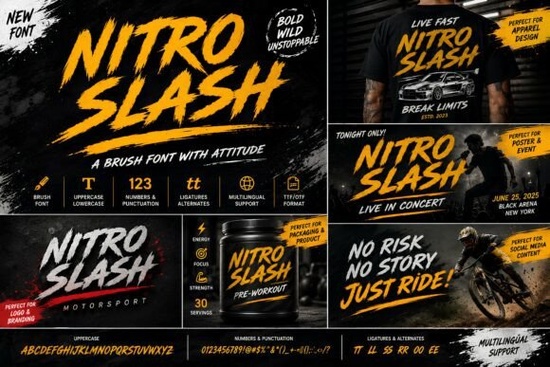
Looking for a brush font with serious attitude? The Nitro Slash Font brings aggressive strokes, sharp edges, and raw energy to any design. It was built for projects that need to look fast, loud, and fearless think street racing posters, gaming graphics, bold apparel designs, and eye-catching social media content. If your work needs that rough, handcrafted street-style feel, this typeface delivers it without trying too hard.
This review covers what makes Nitro Slash worth adding to your font library, who it works best for, and how to actually use it in real projects.
What Kind of Projects Does Nitro Slash Work Best For?
This font was designed with urban culture in mind graffiti, extreme sports, action movie posters, and motorsport branding. But its uses go well beyond those categories. Here are some practical ways designers and sellers are using it:
- Print-on-demand products t-shirts, hoodies, and stickers with bold typographic designs
- YouTube thumbnails large, punchy text that grabs attention in a feed
- Gaming logos and overlays the aggressive brush style fits esports and streaming visuals
- Event posters concerts, races, skate competitions, and urban festivals
- Social media graphics Instagram posts, stories, and reels that need high visual impact
- Branding and packaging especially for streetwear, energy drinks, or action-sport products
The rough brush texture gives it an authentic handmade quality that digital-only fonts often lack. That texture makes it especially useful for designs that need to feel gritty and real rather than polished and corporate.
How Does Nitro Slash Compare to Other Bold Display Fonts?
There are plenty of bold display fonts out there, but not all of them carry the same raw energy. If you're exploring options, it helps to compare styles.
For example, the jersey retro font style leans into vintage sport aesthetics with clean, athletic lettering. That works great for throwback team designs and retro merchandise. Similarly, the varsity famous font taps into classic American college letterman vibes perfect for school spirit gear and nostalgic branding.
On the other hand, the Chicago Bulls font captures that iconic NBA energy with strong, angular strokes. It's a different flavor of bold, but it serves a similar audience of sports and streetwear designers.
Where Nitro Slash stands apart is in its uncontrolled, spray-paint energy. It's less structured and more chaotic which is exactly the point. If your project needs to feel like it's moving at full speed, this font nails that feeling better than most clean-cut alternatives.
Of course, not every project calls for intensity. If you're working on something softer, a cute simple font style might be a better fit for things like children's products, bakery branding, or feminine lifestyle designs.
Is Nitro Slash a Good Choice for Beginners?
Yes. Even if you're new to design, working with display fonts like this one is straightforward. Here are a few quick tips:
- Use it at large sizes. Brush fonts with detailed textures look best when they're big. Small text sizes can make the edges look messy or unreadable.
- Pair it with a clean sans-serif. Let Nitro Slash handle headlines while a simple font handles body text. This creates contrast and keeps your layout readable.
- Stick to dark backgrounds or high-contrast color schemes. The aggressive strokes pop best against dark or vibrant backdrops.
- Avoid using it for long paragraphs. It's a display font, not a reading font. Keep it for titles, logos, and short impactful phrases.
These small choices make a big difference in how professional your final design looks.
Quick Checklist Before You Buy
Before purchasing, run through these points:
- Does your project call for a bold, aggressive visual style?
- Will the text appear at a large enough size to show the brush details?
- Do you have a clean secondary font ready for supporting text?
- Have you tested it with your brand colors or background to see how it reads?